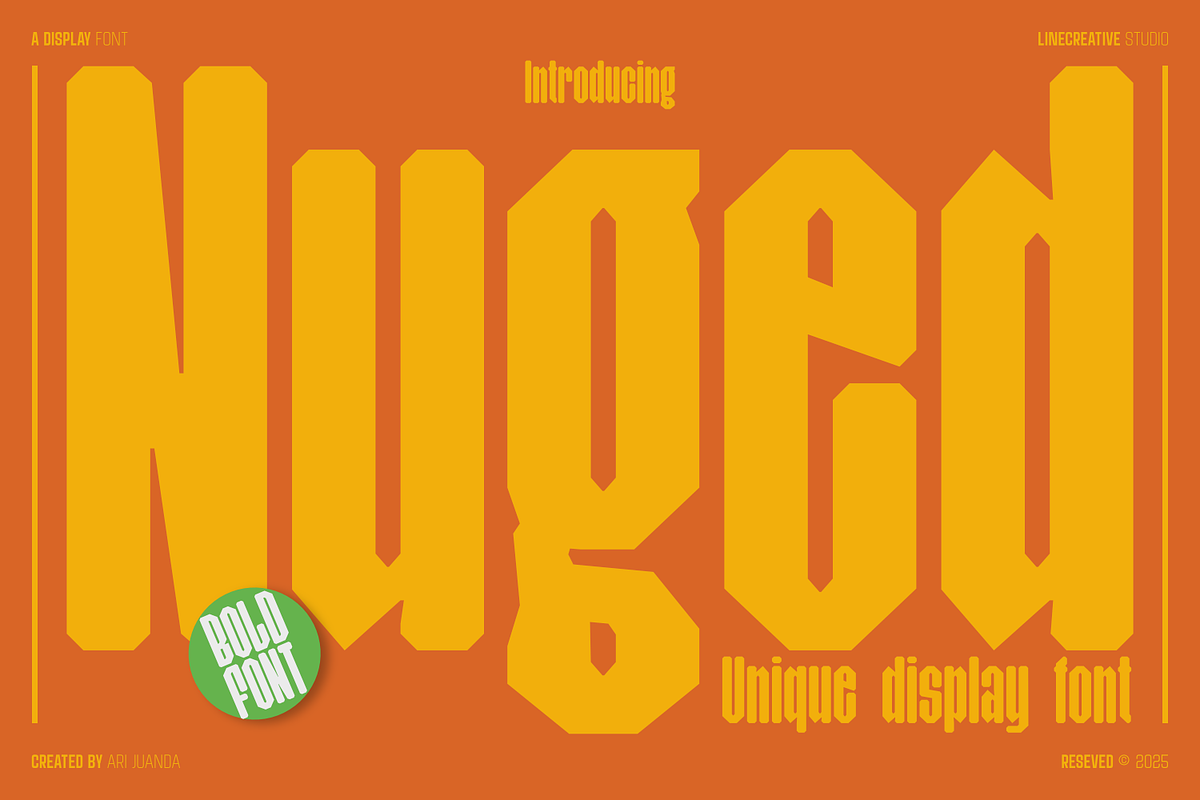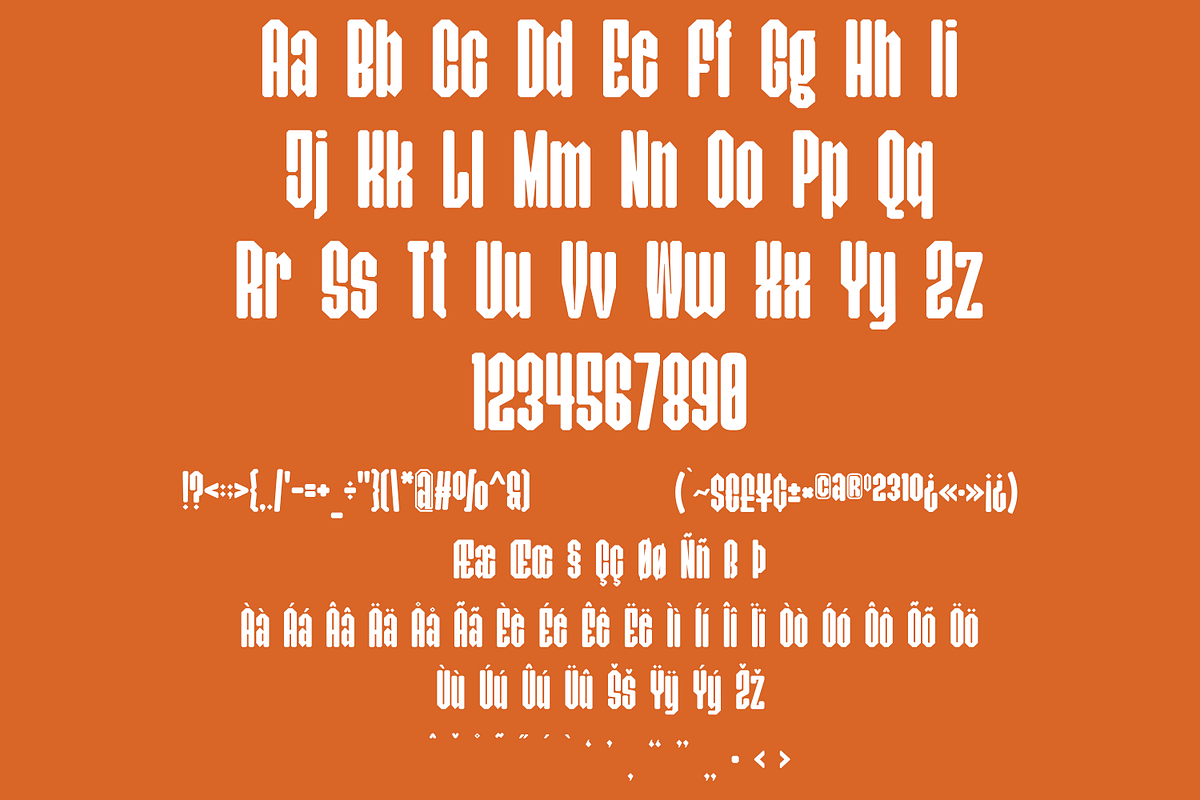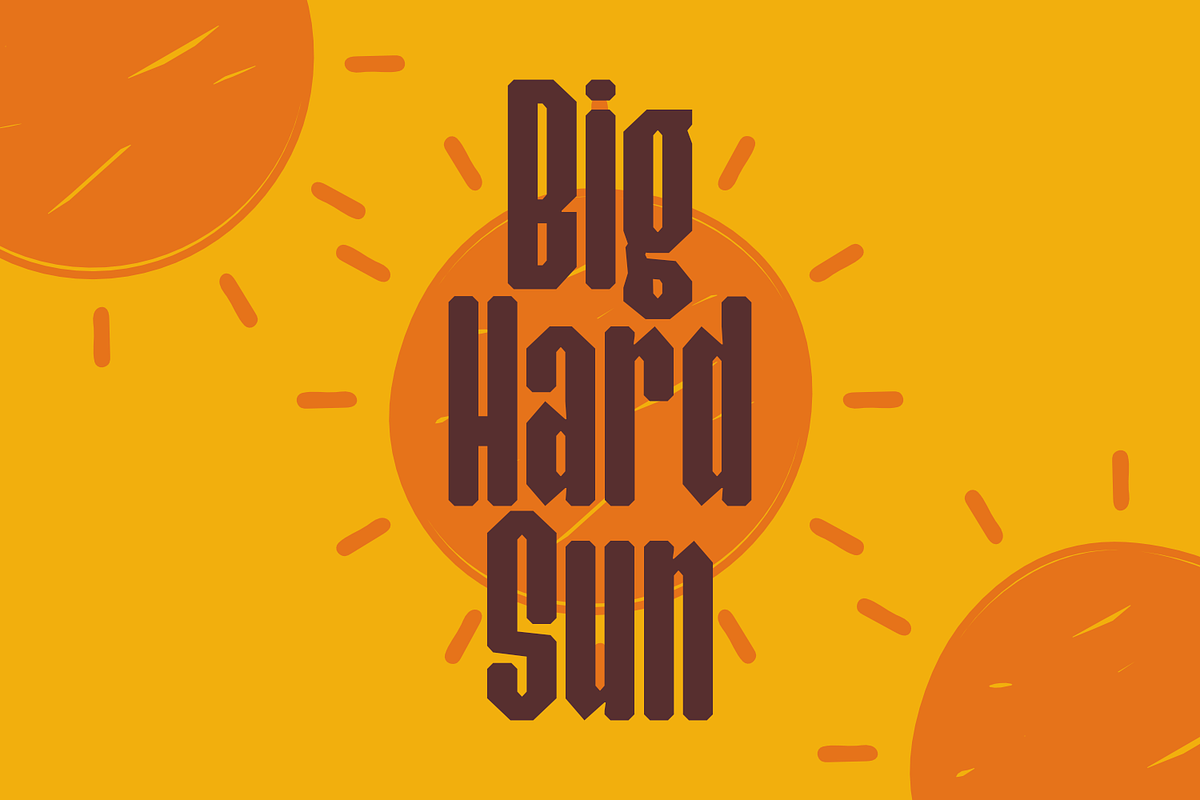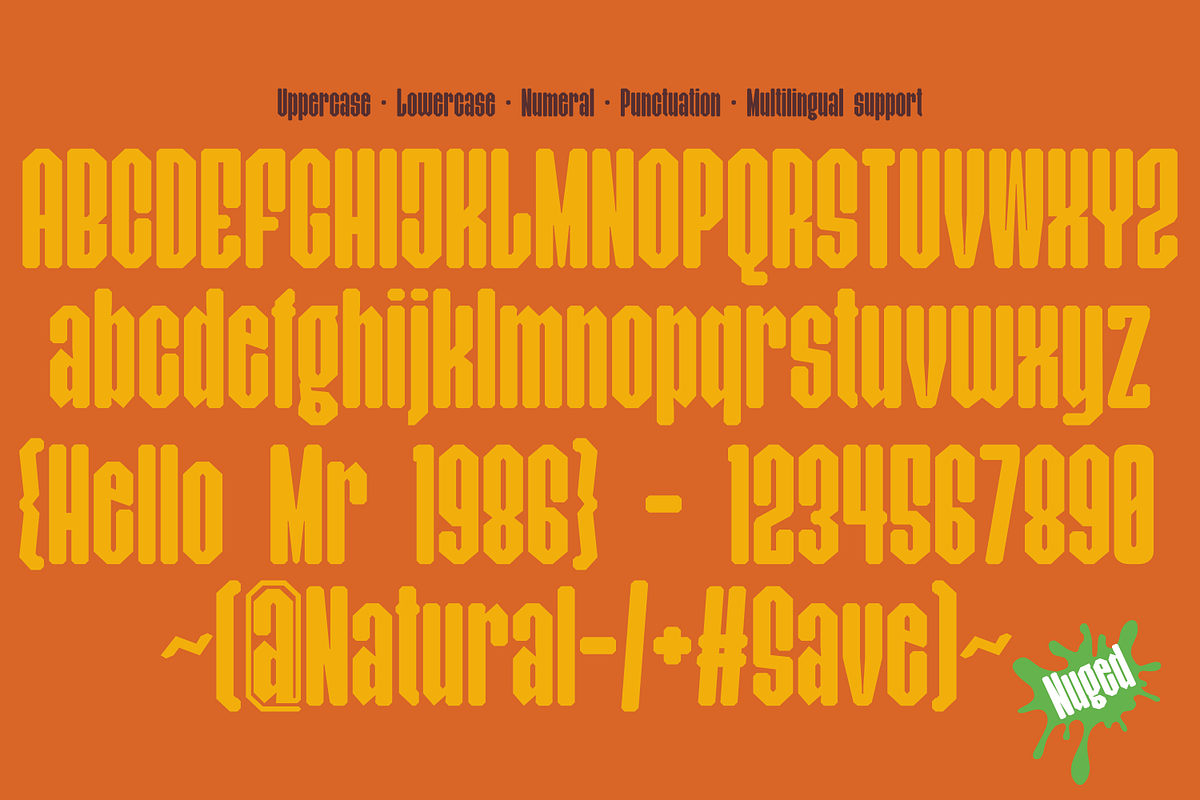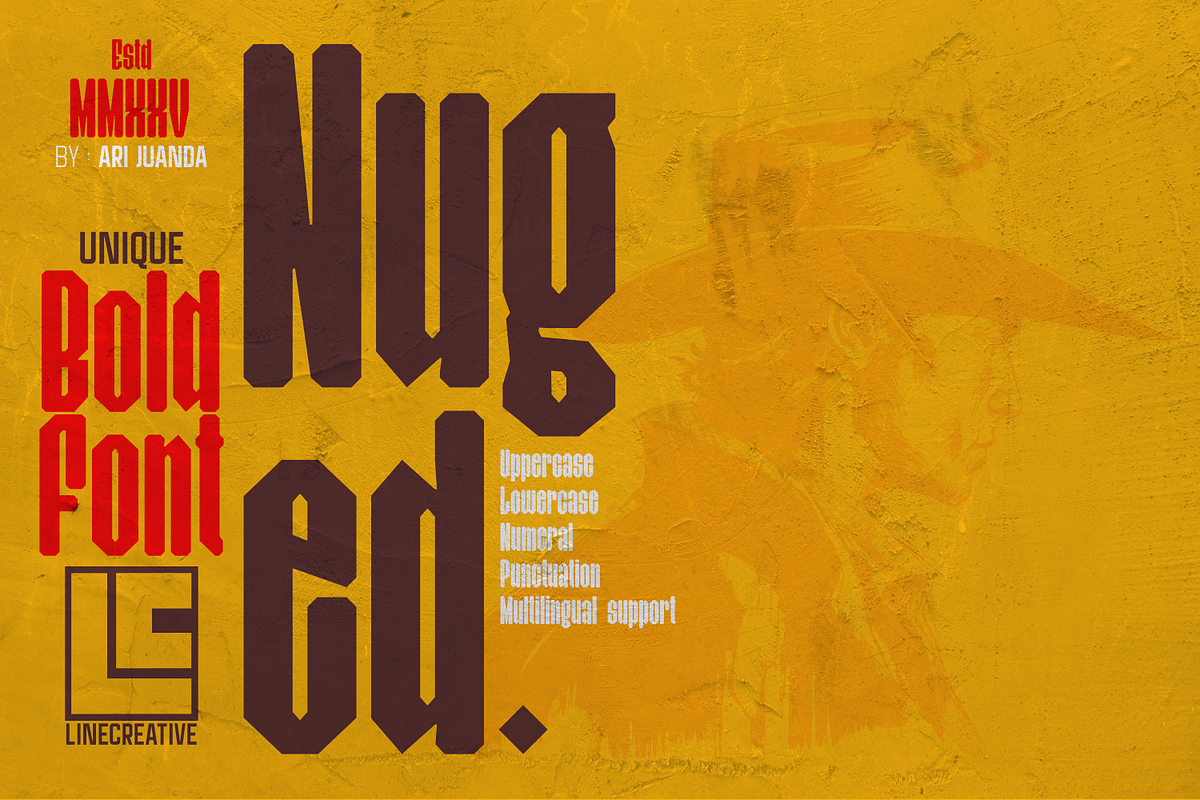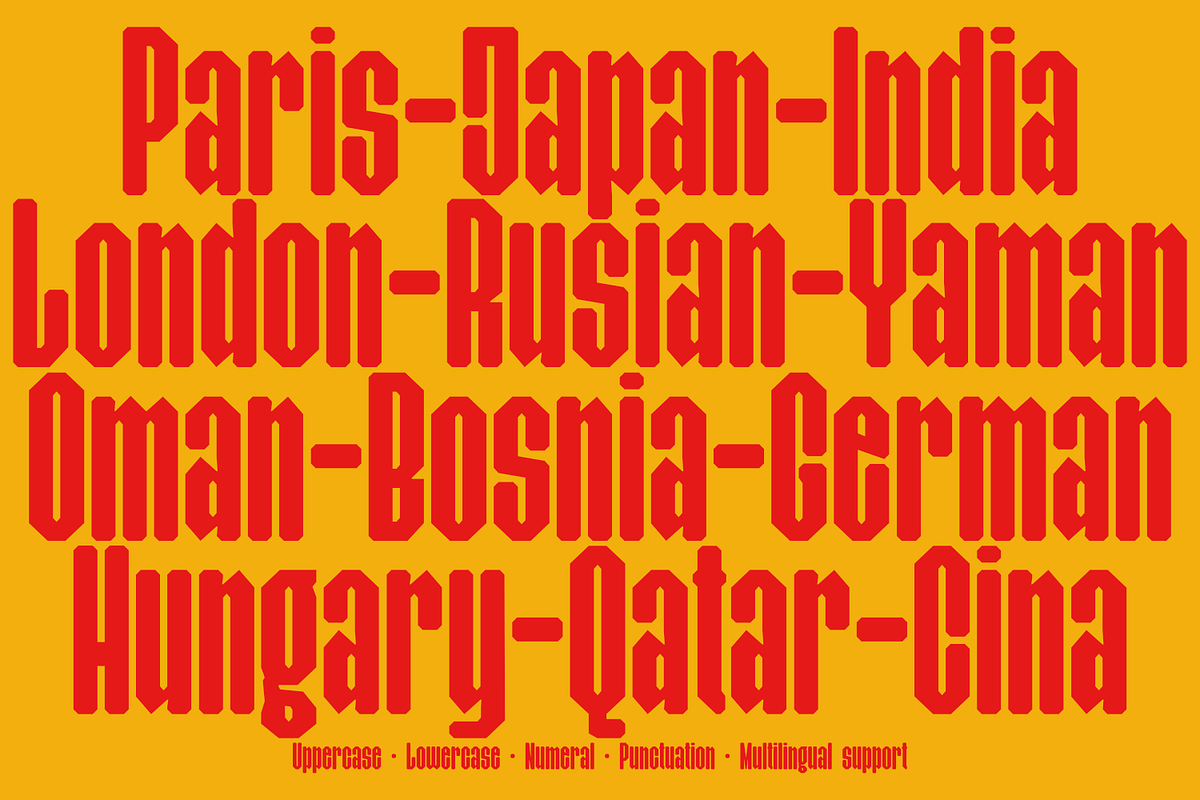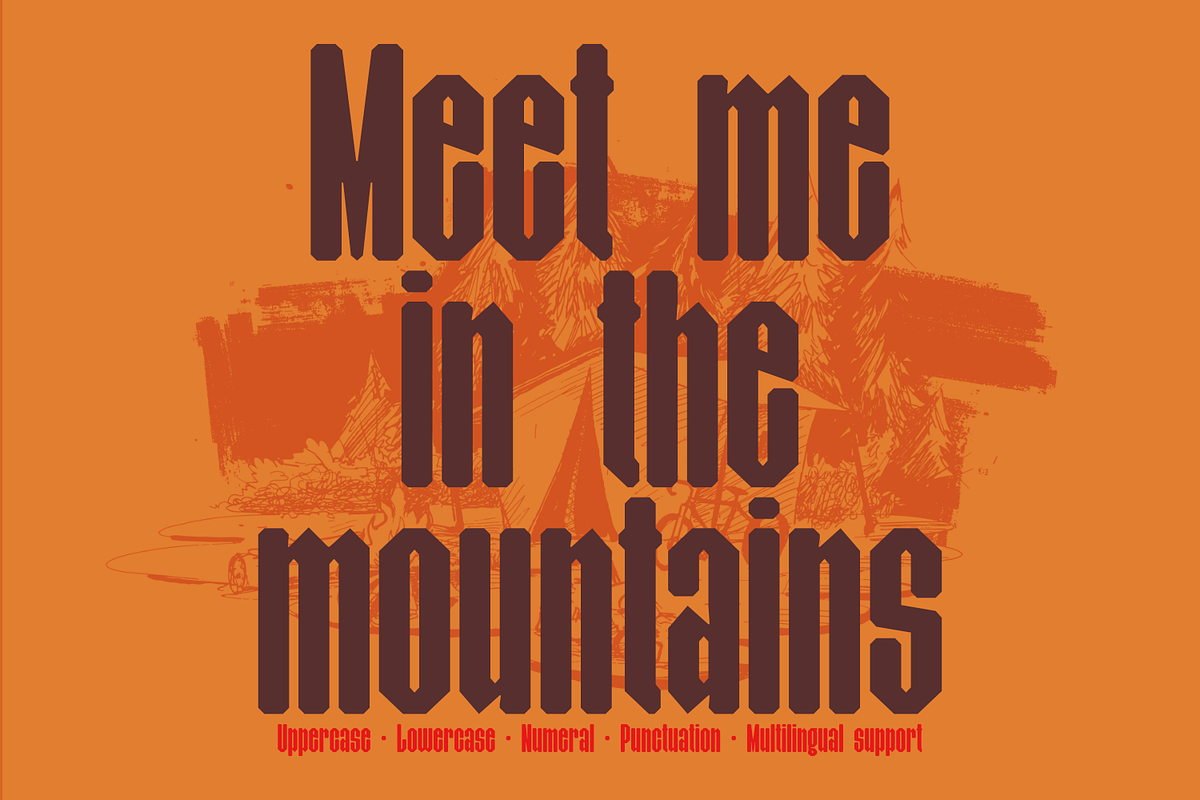
Nuged
Nuged is a bold condensed display font designed to make a strong visual impact. Featuring both uppercase and lowercase letters, it blends the clean, structured form of condensed sans-serif with a subtle touch of blackletter flair. This unique combination gives Nuged a bold, distinctive personality—perfect for posters, branding, logos, and editorial headlines. Nuged delivers strength and versatility in one stylish package.
- Numbers and Punctuation
- Supports Multilanguage (Western European Latin)